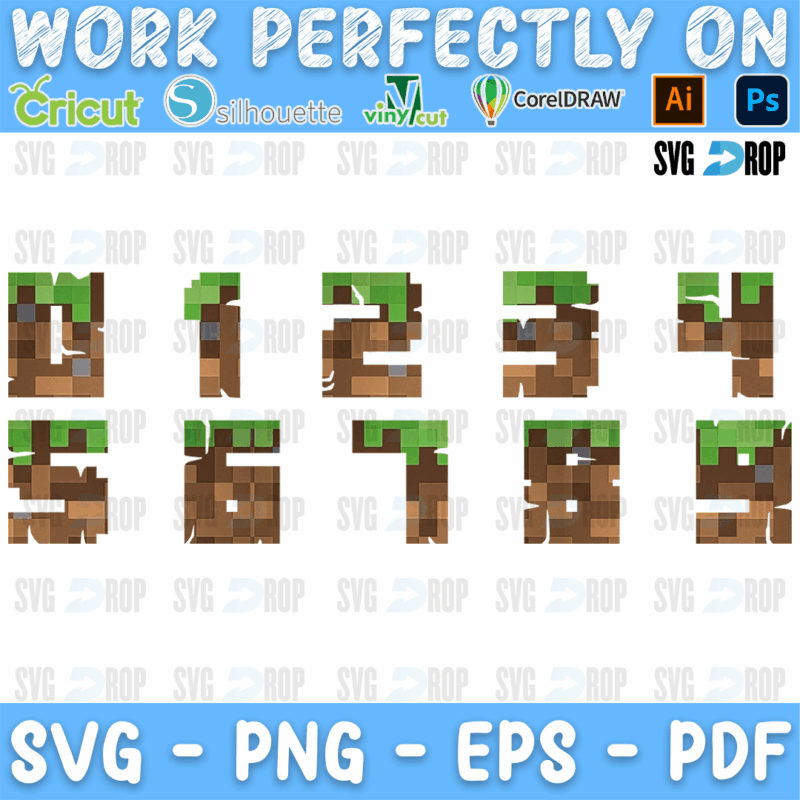
Minecraft Grass and Dirt Font SVG
✨ A Minecraft style alphabet with pixel letters in brown dirt tones with green grass tops, letters A to Z and numbers 0 to 9 under the Minecraft logo.
🎮 Personalised names, birthday shirts, banners, signs and cake toppers in Minecraft style block lettering for gamer kids.